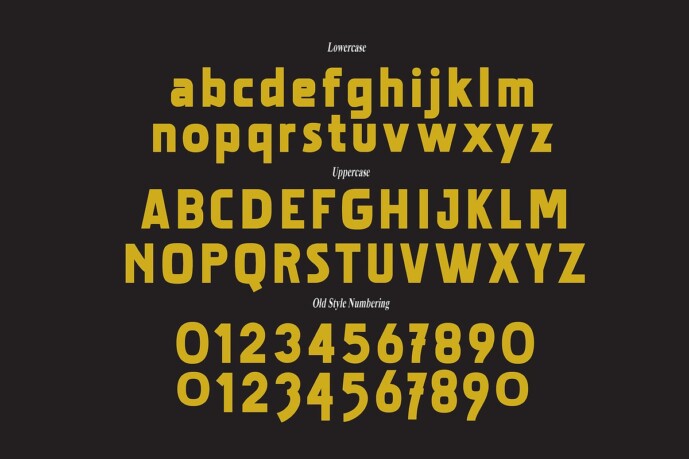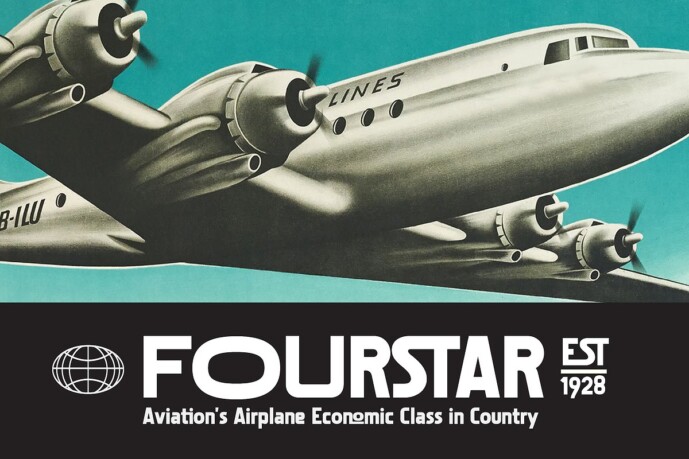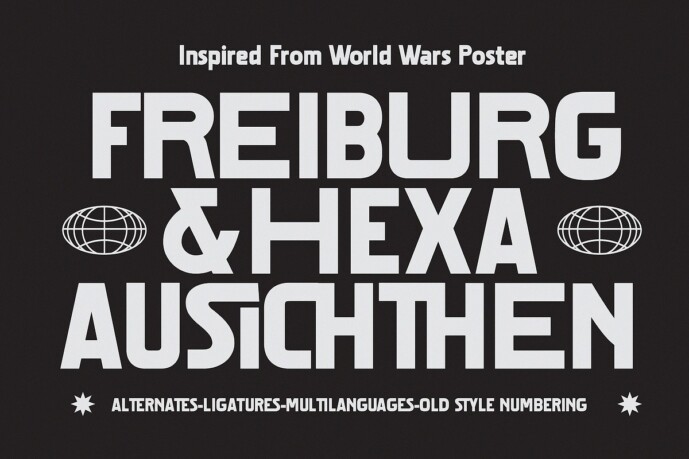
Freiburg Font
Designer: Fortunes Co
Freiburg Font a retro vintage typographic world of wars portrays each letter as a soldier fighting for attention and impact. The fonts are reminiscent of propaganda posters and wartime advertisements from the era, evoking a sense of urgency and patriotism. Bold, blocky serifs combined with rugged, weathered textures capture the grit and determination of those turbulent times. Each character bears the scars of conflict, yet stands tall and defiant.